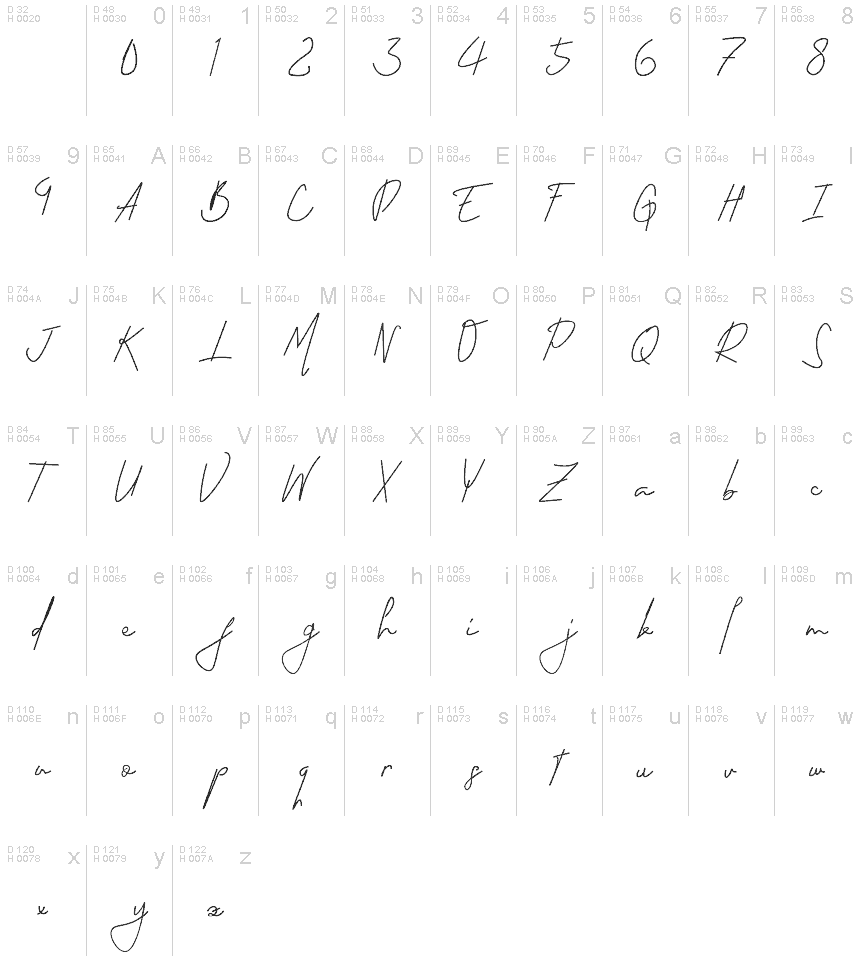
Permata
Permata is a captivating handwritten font that exudes a sense of elegance and refinement. Crafted with a delicate touch, its signature-like strokes convey an authentic, personalized quality that adds charm and character to any design. The light weight of the font emphasizes its graceful nature, making it well-suited for a wide range of applications, from high-end branding and packaging to invitations and event materials. Permata's unique style seamlessly blends the organic beauty of handwriting with a polished, sophisticated finish, allowing designers to elevate their projects with a touch of artistry and sophistication.
Designers seeking to infuse their work with a touch of elegance and personal flair will find Permata to be a versatile and compelling font choice. Its versatility makes it an excellent option for creating captivating headlines, elegant logos, and eye-catching typographic treatments that leave a lasting impression.